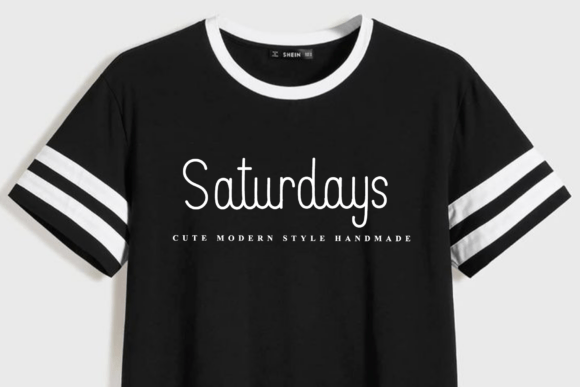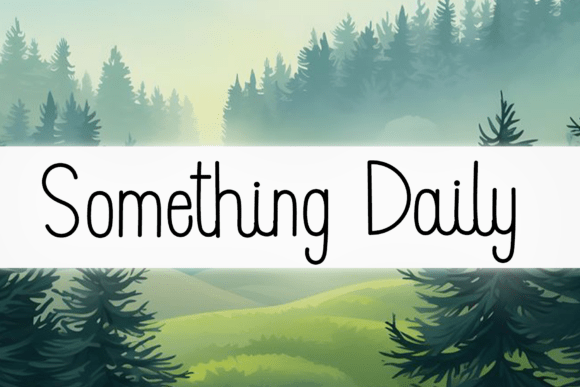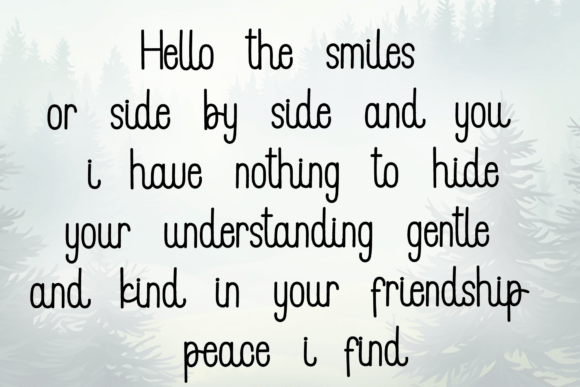
Introduction to Models Greats Font
Imagine you’re working on a creative project, pouring your heart and soul into every detail. You’re designing a packaging label for a small-batch artisanal food product, and you want the typography to reflect the brand’s unique personality. That’s where the Models Greats Font comes in – a sophisticated and rhythmic script font that elevates your design to the next level.
This elegant font is a game-changer for designers who want to add a touch of high-quality, artisanal charm to their projects. With its calligraphic style and warm, organic aesthetic, the Models Greats Font is perfect for creating a sense of luxury and sophistication in your designs. Whether you’re working on a boutique product packaging project or an upscale lifestyle marketing campaign, this font is a must-have in your design arsenal.
Key Features of Models Greats Font
- High-quality font design suitable for creative projects and various design resources, making it a popular choice among designers.
- Features a clean and modern design, making it suitable for a wide range of creative projects, from logos to branding materials.
Honest Review: Models Greats Font
As a designer, I’m always on the lookout for high-quality design resources to elevate my creative projects. Recently, I came across the Models Greats Font, and I was excited to give it a try.
First impressions: the font is sleek and modern, with clean lines and a neutral color palette. It’s perfect for creating a minimalist aesthetic in your design work.
- ⚠️ Limited font styles and weights available (only a few options to choose from)
- ⚠️ Not ideal for use in complex, multi-font designs (can be overwhelming with the simple aesthetic)
Overall, I’m impressed with the Models Greats Font. While it may have some limitations, its clean design and high-quality files make it a great addition to any designer’s toolkit.
Getting the Most Out of Models Greats Font
Models Greats Font is perfect for various creative projects, including logos, business cards, brochures, and social media graphics. Its high-quality design and free download make it an excellent design resource for any project.